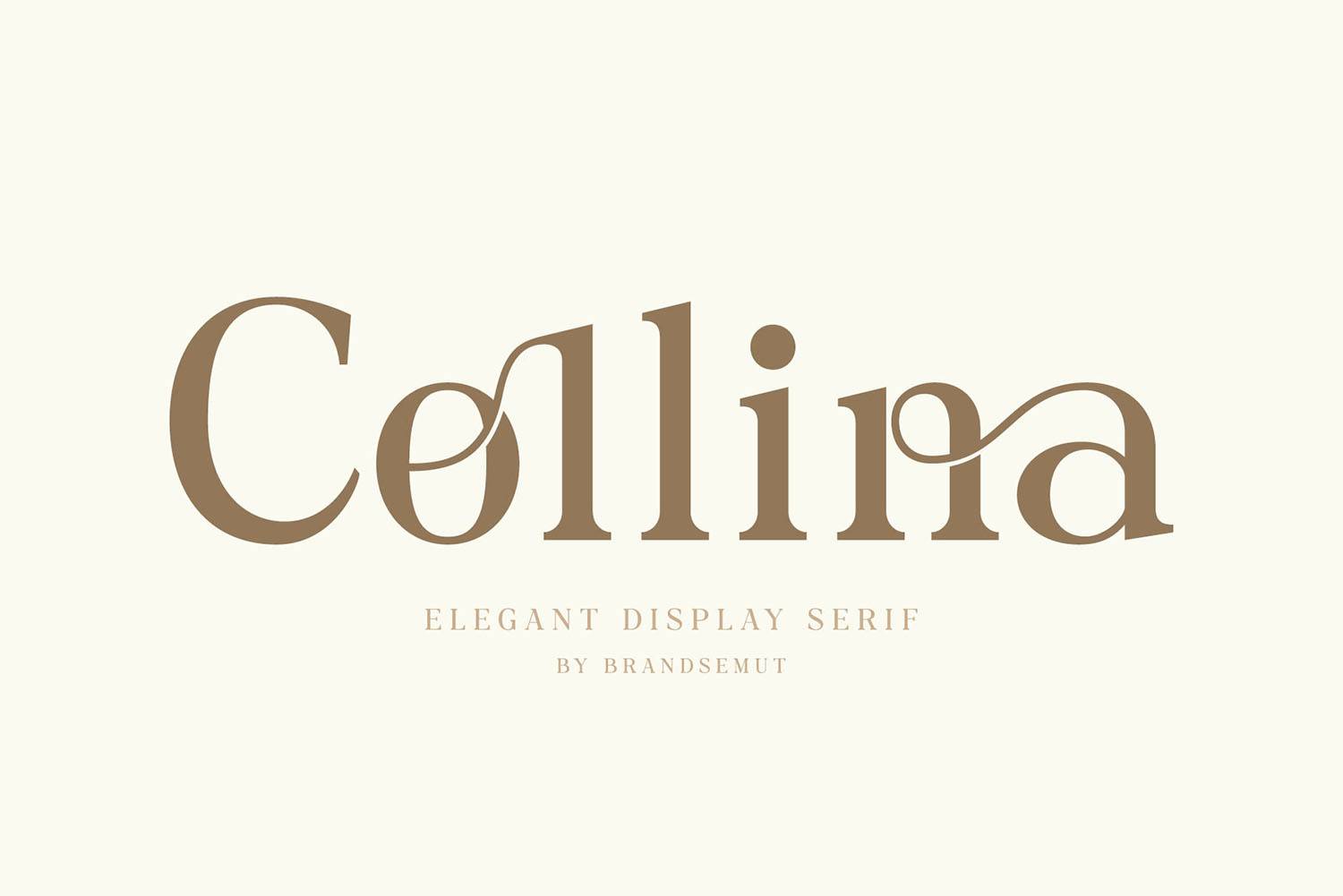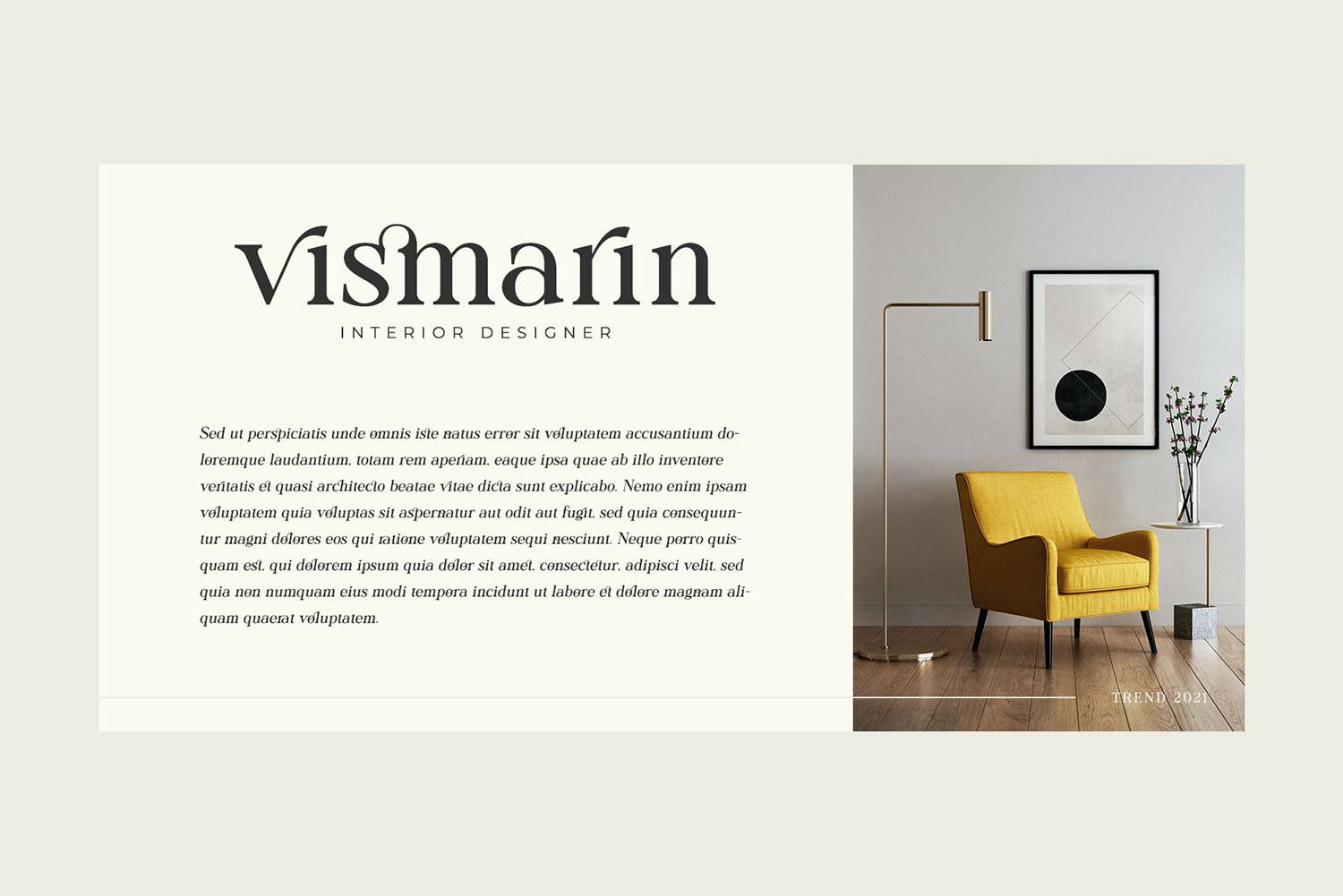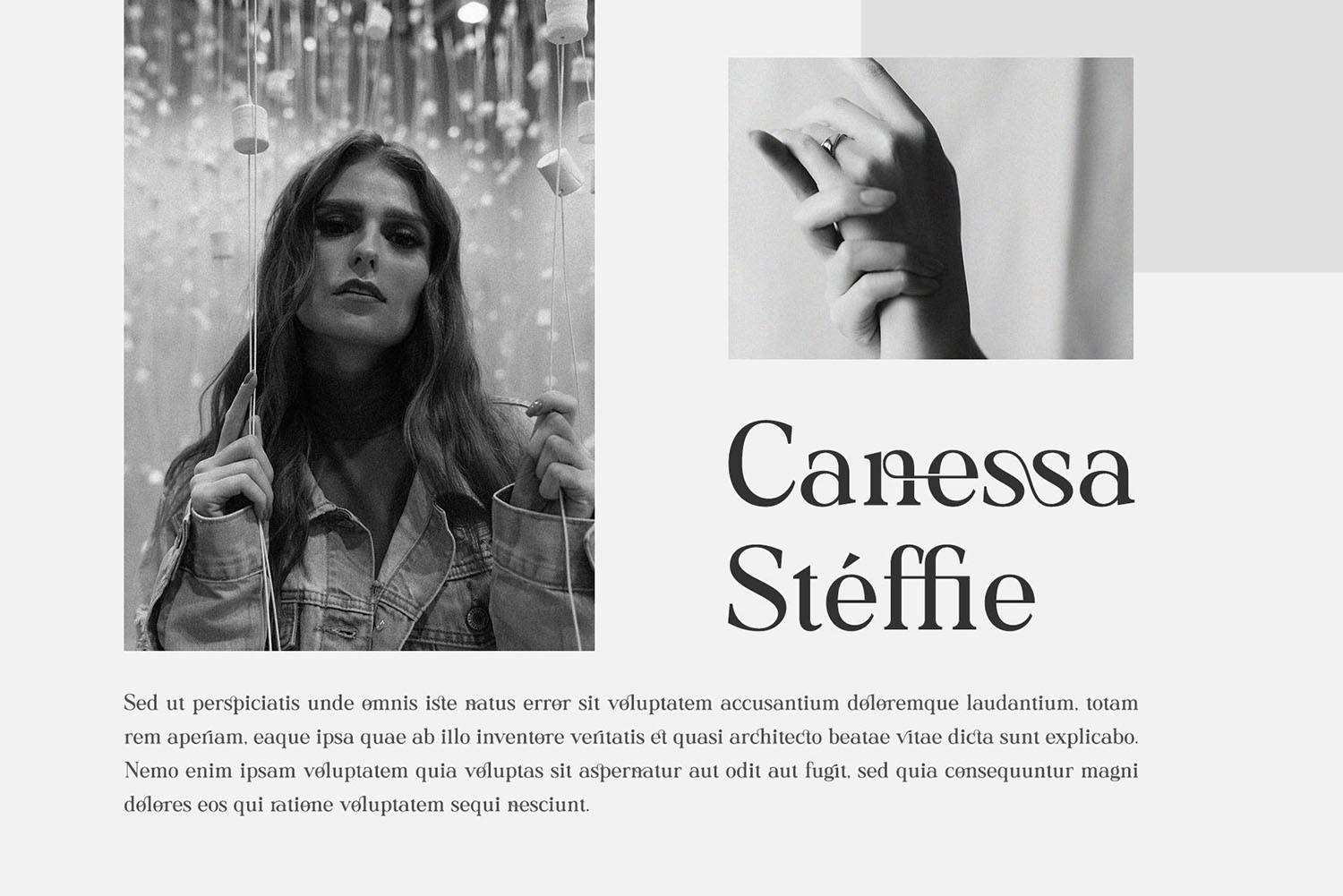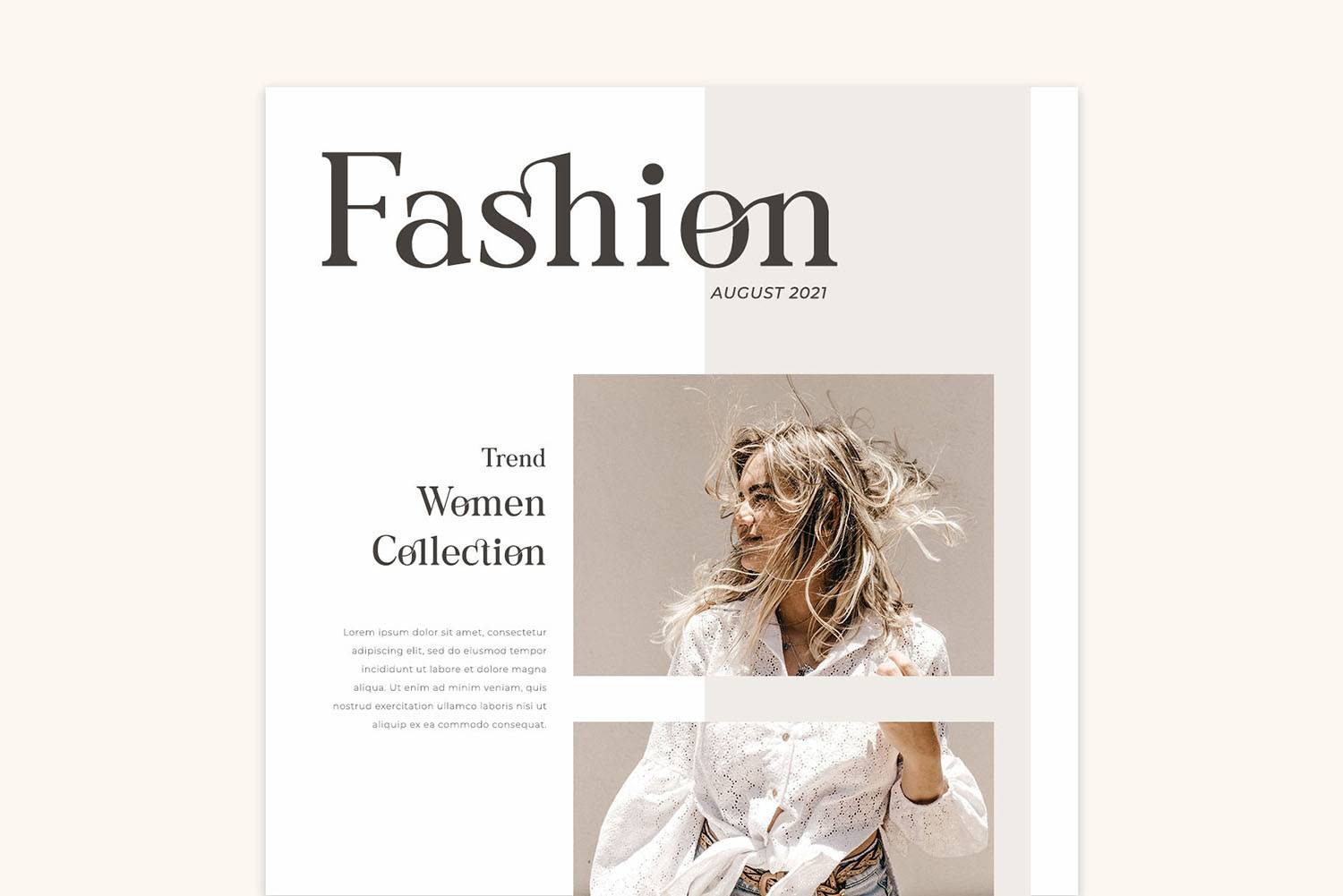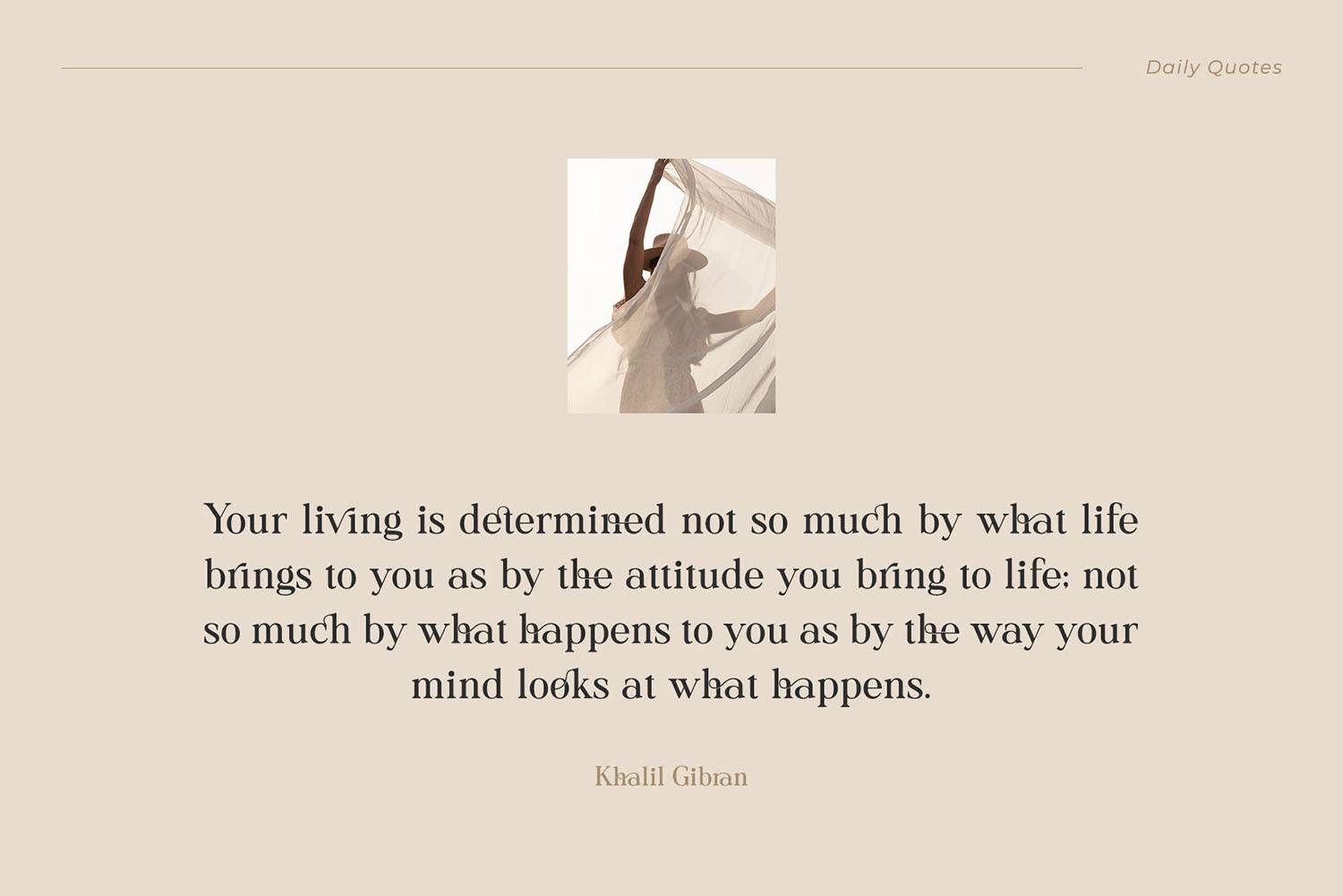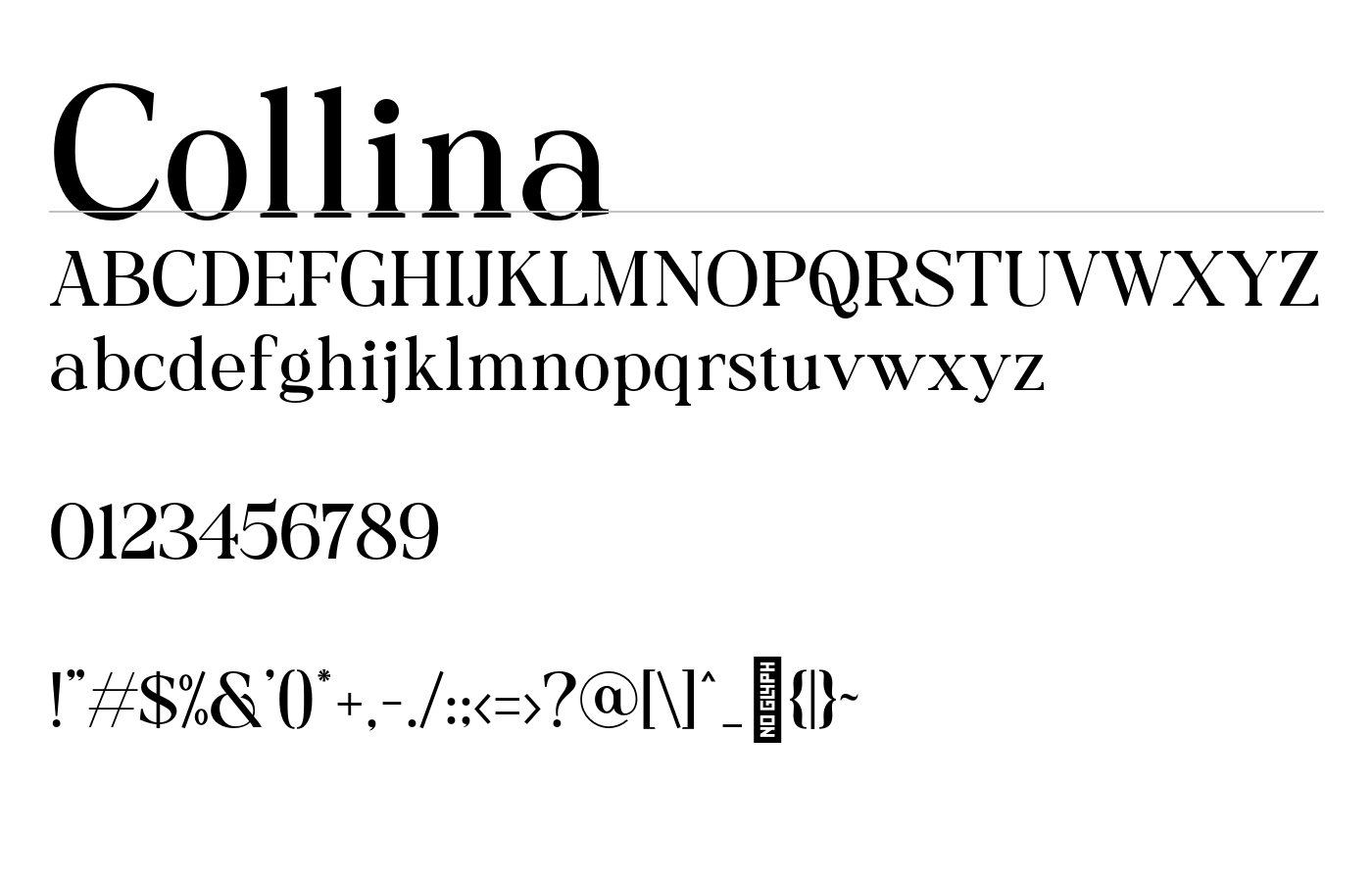
Collina is an elegant serif typeface with a classic, modern feel characterized by its high contrast between thick and thin strokes and sharp, unbracketed serifs. Its refined letterforms with tall x-height and distinctive details, like the curved tail on the Q and single-story g, make it perfect for sophisticated branding, editorial design, and upscale packaging where clarity and style are key. This font balances authority and grace, making it ideal for luxury, fashion, and high-end editorial uses.
Collina Font
| Designer | Ahmad Sidiq |